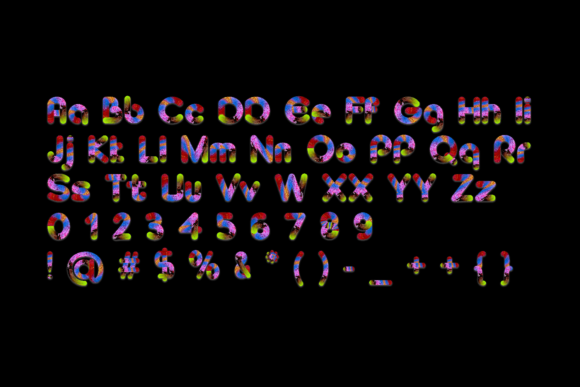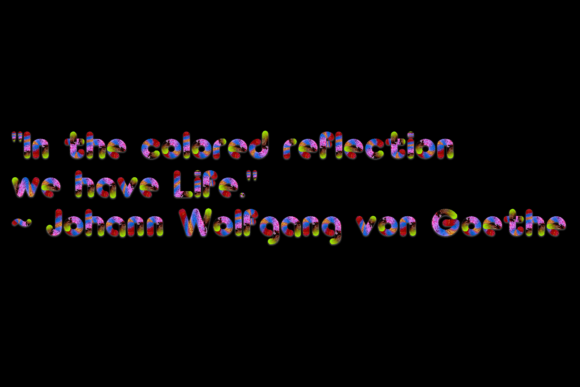
About Colorful Ice Font
Colorful Ice is a fun and friendly color font that brings a youthful and joyful touch to your designs. Whether you’re creating party invitations, gathering announcements, or any design that requires a vibrant and lively element, this font is a perfect choice.
With its playful and colorful letterforms, Colorful Ice adds a sense of excitement and celebration to your typography. It instantly grabs attention and creates a visually captivating experience, making it ideal for various occasions and themes.
Whether you’re organizing a birthday party, a special event, or simply want to infuse your designs with a youthful and energetic vibe, Colorful Ice is the perfect font. It exudes a sense of fun and positivity, setting the tone for a memorable and enjoyable experience.
Embrace the fun and friendly nature of Colorful Ice and let it enhance your party invitations, gatherings, and other designs. Watch as it brings a touch of youth and joy to each project, creating a vibrant and engaging atmosphere. With Colorful Ice, you have a fantastic tool to add a playful and lively element to your designs, making them shine with creativity and happiness.